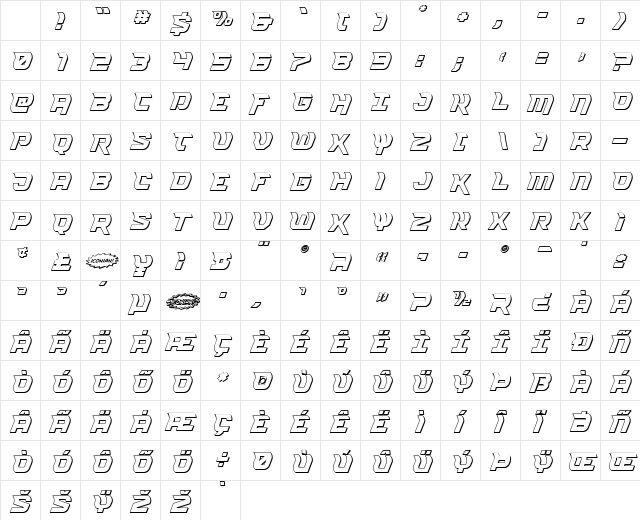
Renegent 3D Regular Free Font
Renegent 3D Regular
Complete Renegent 3D Regular glyph index. Displaying only characters natively supported by Renegent 3D Regular font.
Design Context for Renegent 3D
Renegent 3D is a composed and adaptable typeface that performs quietly and consistently across a wide range of design contexts.